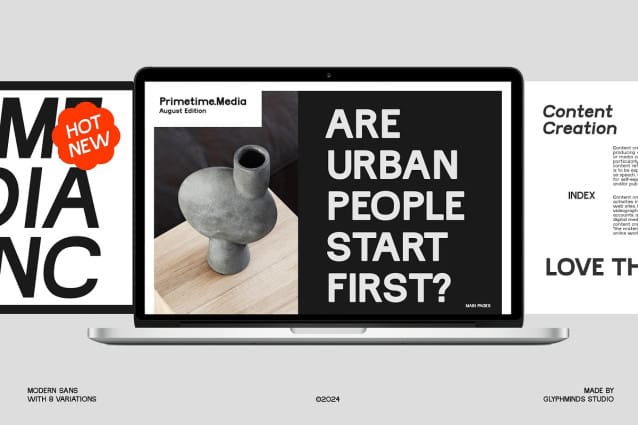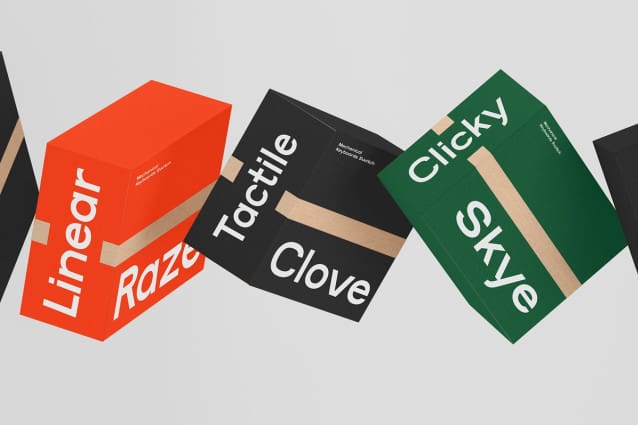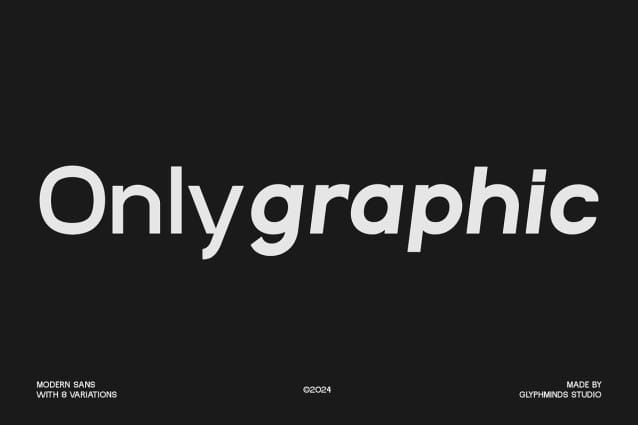
Onlygraphic Font Family
Onlygraphic Font Family a sleek and modern sans-serif font designed to elevate your creative projects. With 8 unique variations, this font is perfect for a wide range of applications, from branding and marketing materials to web and app design. The clean lines and versatile style make “Onlygraphic Font” an excellent choice for professionals seeking a polished and contemporary aesthetic. Whether you’re working on a logo, poster, or social media content, this font will help your work stand out with its bold and minimalist design.